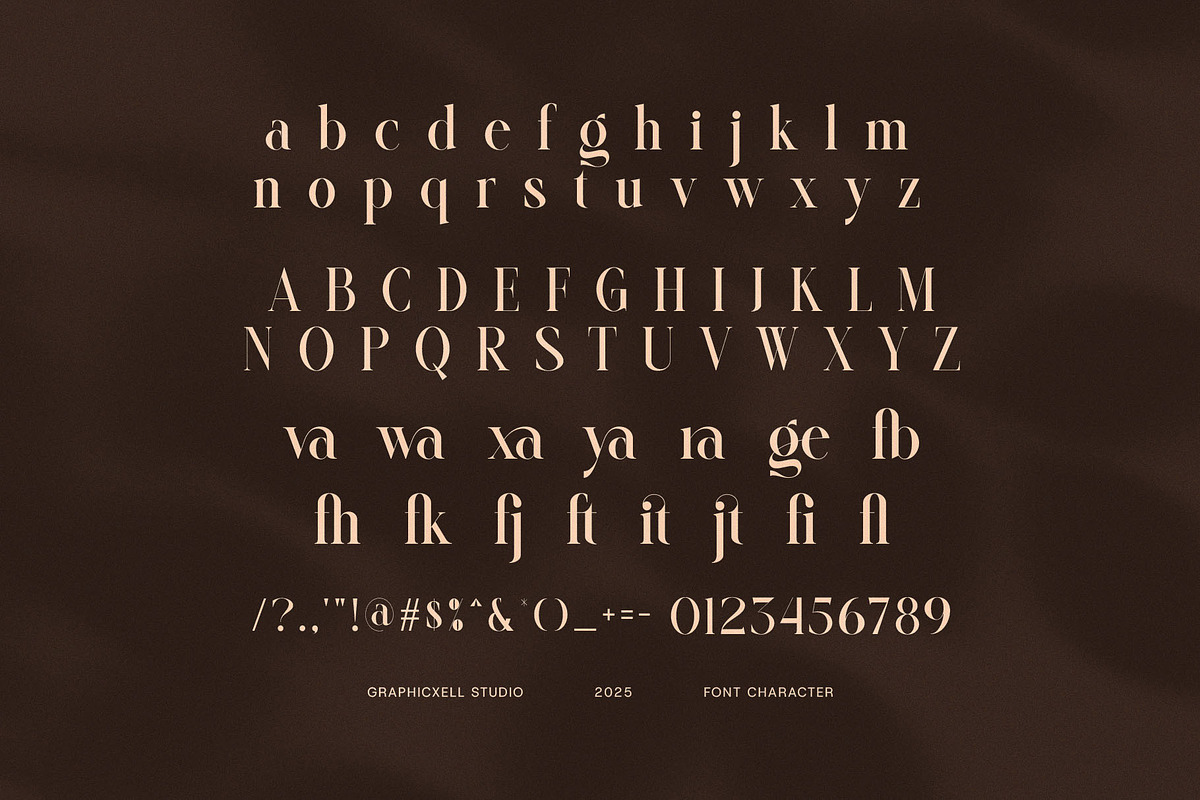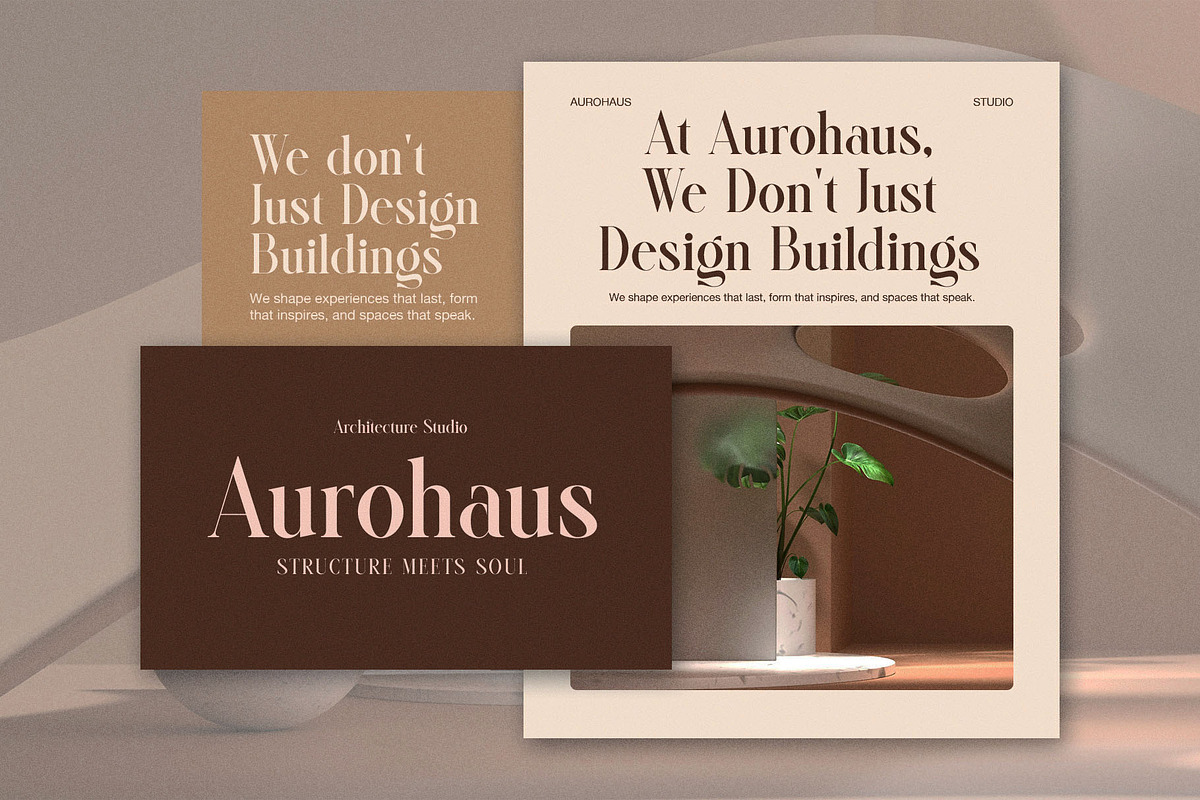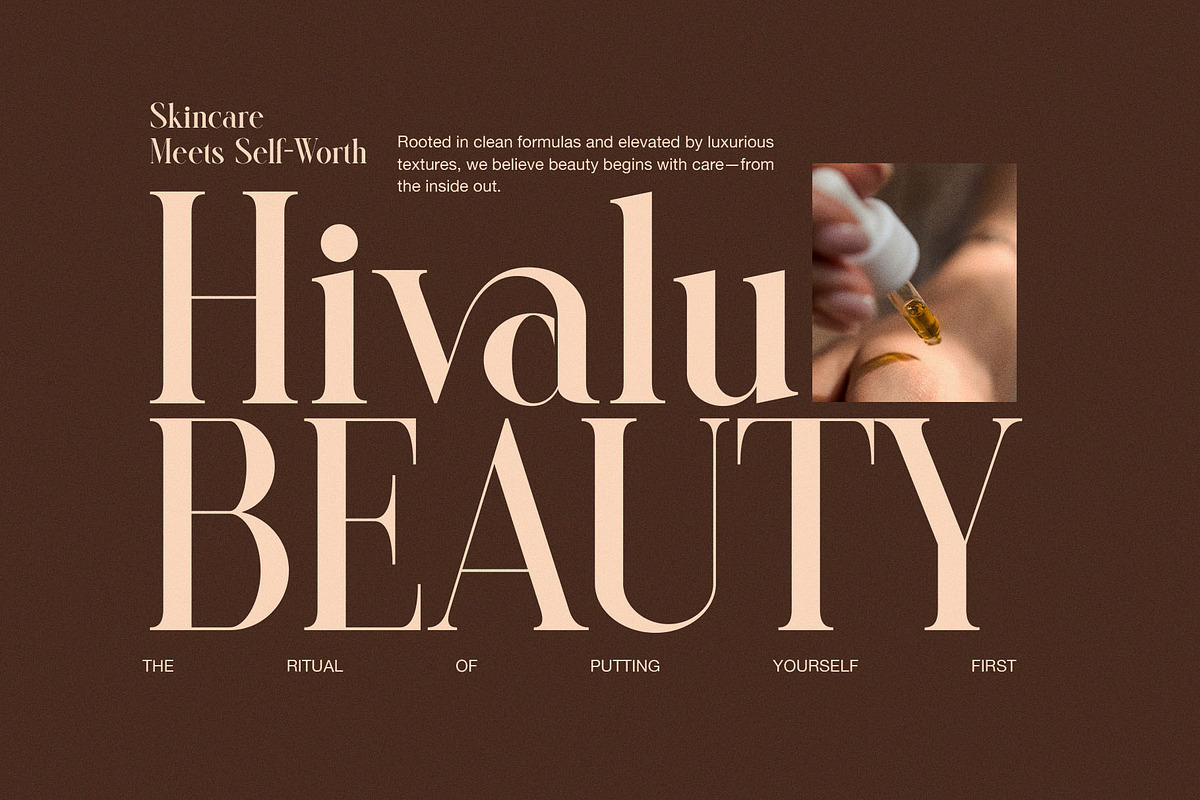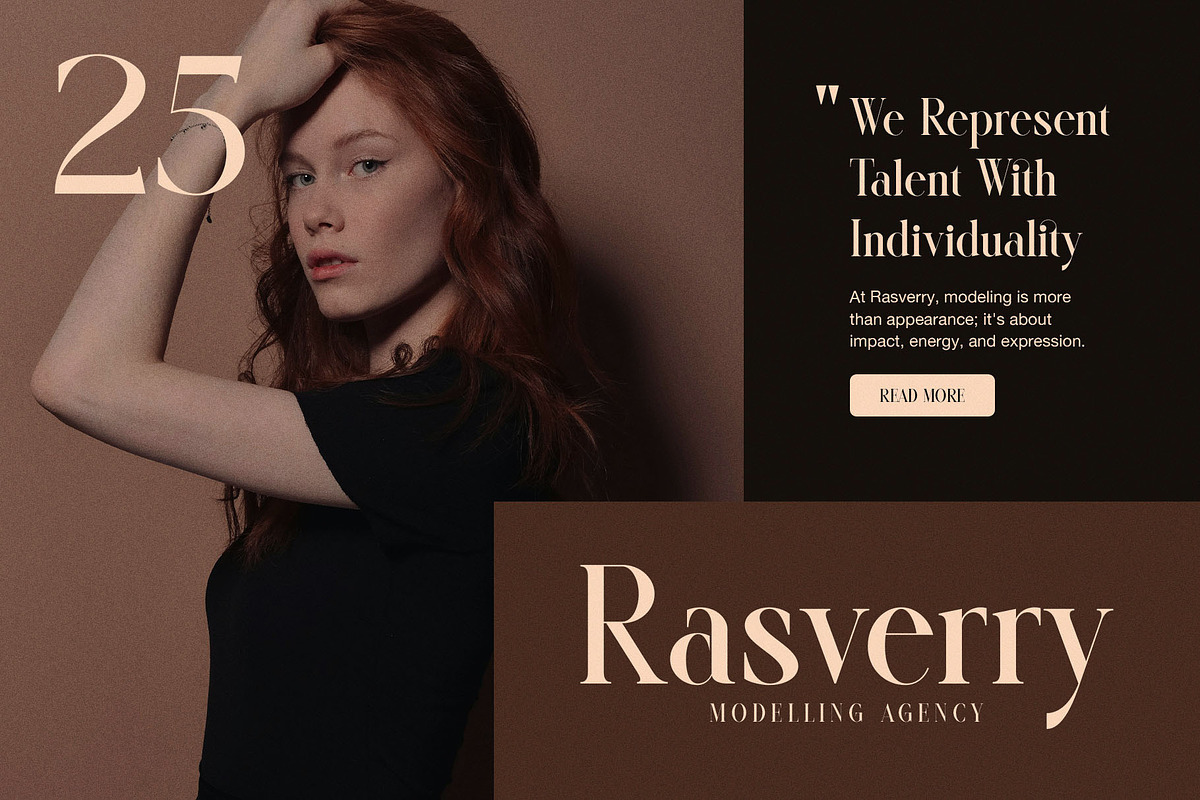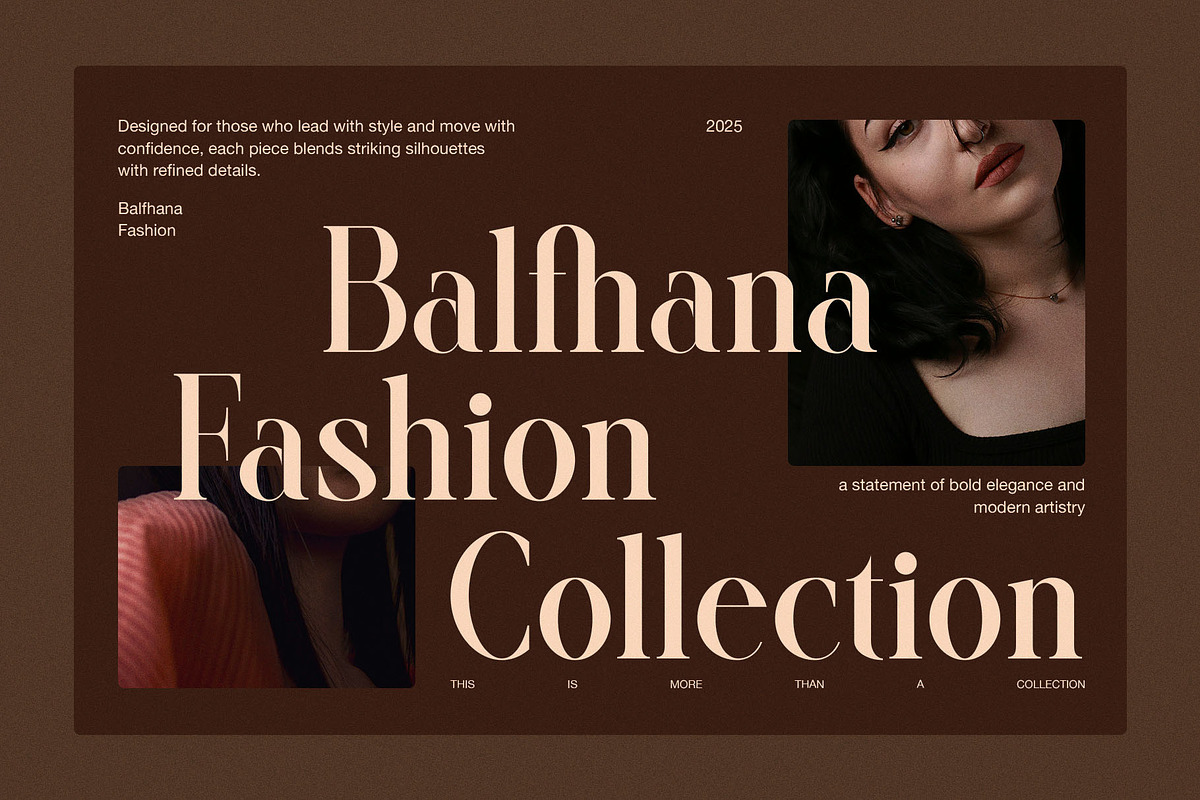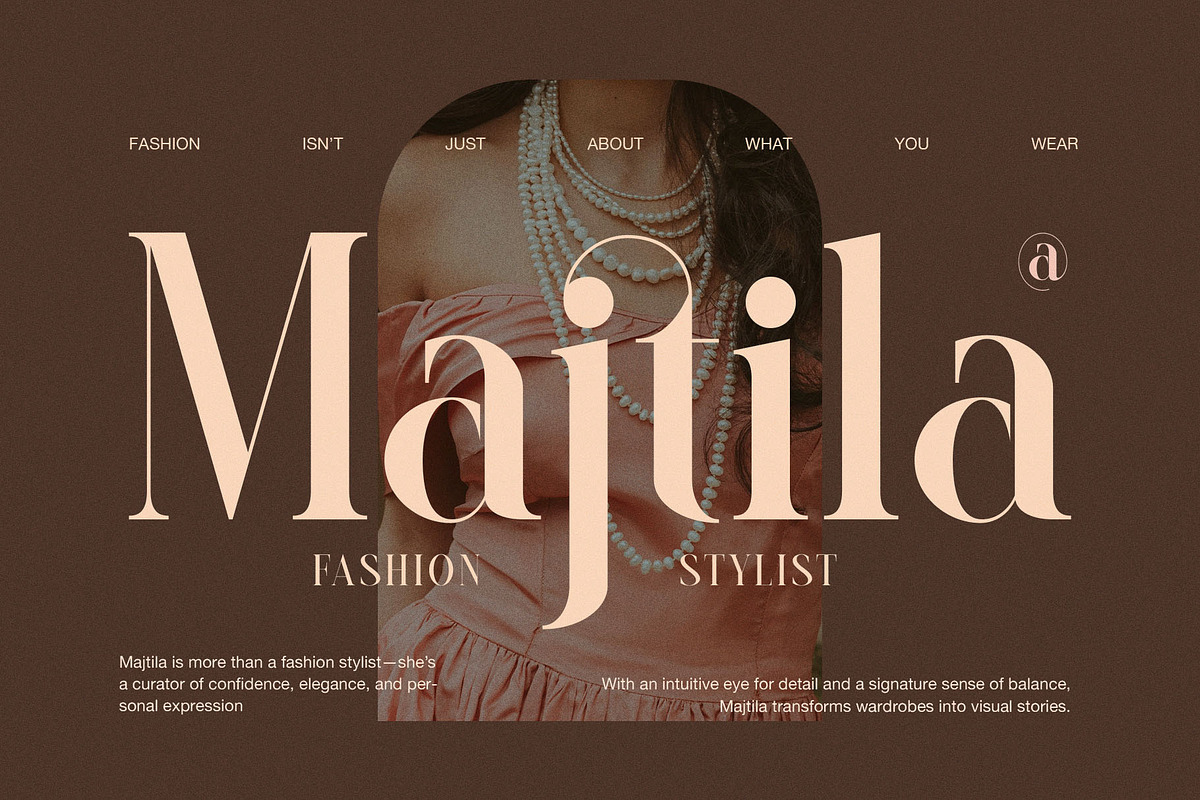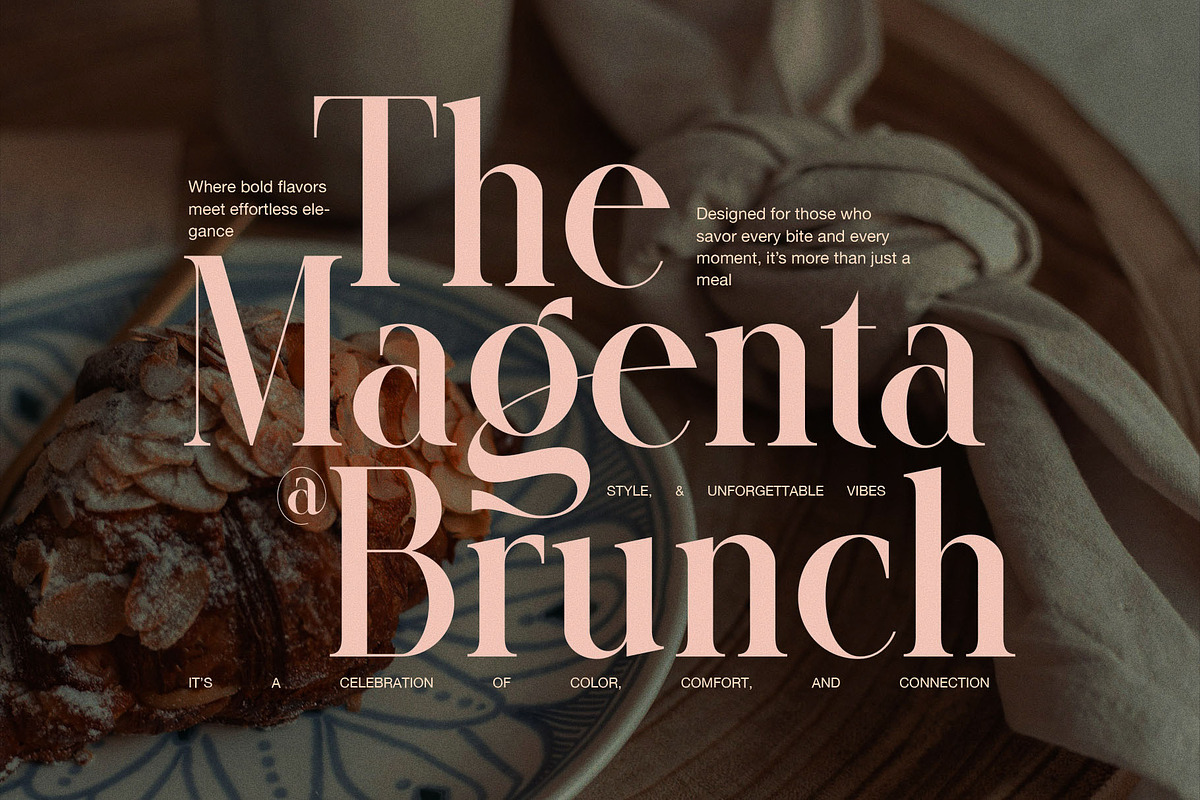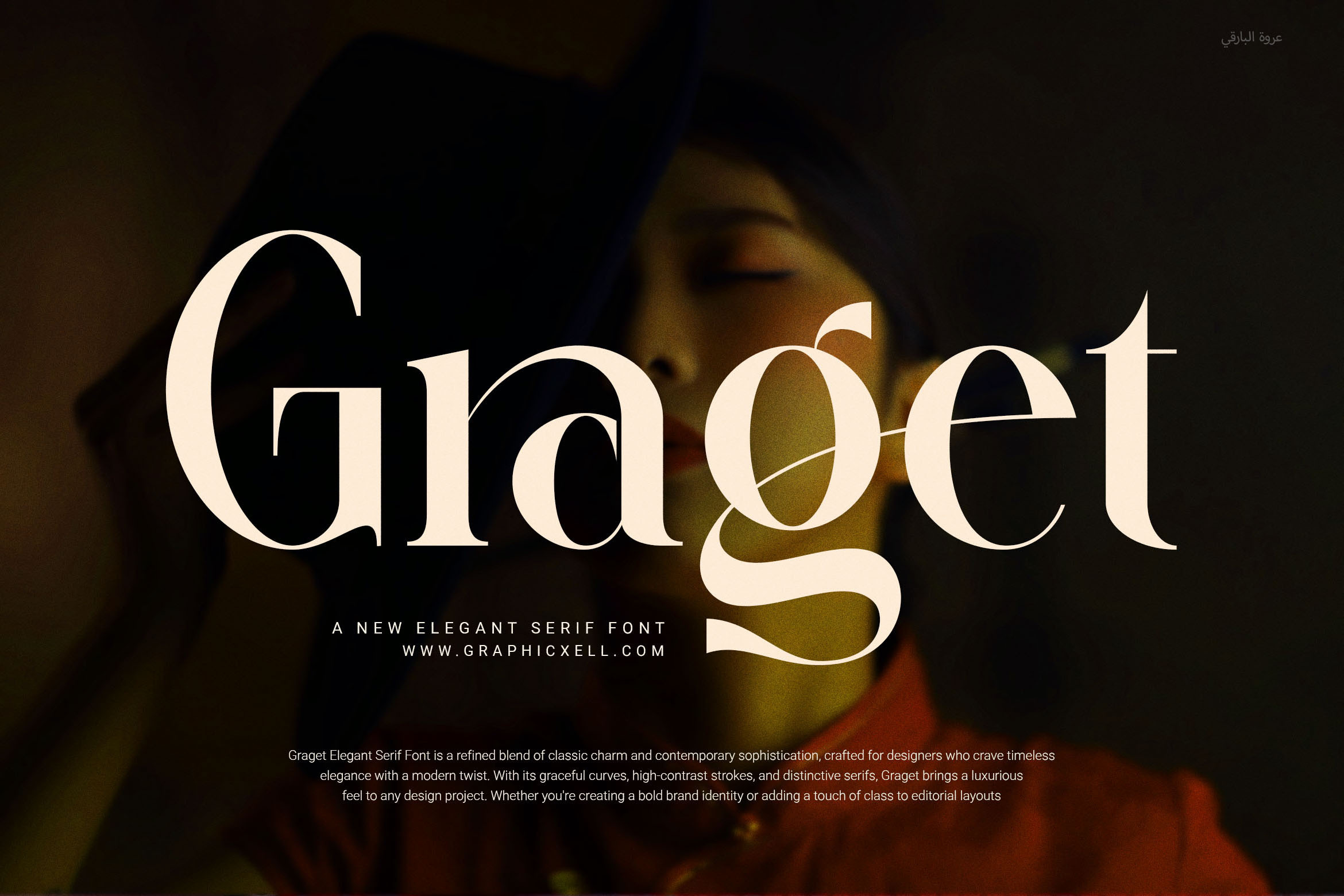
Graget Elegant Serif Font
Graget Elegant Serif Font – Modern Elegance for All Your Branding Needs
Graget Elegant Serif Font is a clean and modern serif typeface designed to bring sophistication and style to your brand. Its balanced and proportional shapes work perfectly for a variety of design projects. Whether you're creating logos, branding materials, websites, magazines, or product packaging, Graget adds a polished and professional touch that makes your work stand out.
This font also features functional ligatures that improve readability and add a unique flair to your designs. As a result, your text flows smoothly and looks refined. Graget is versatile enough for use in diverse industries, including boutiques, food brands, advertising, and more.
Ideal applications for Graget include:
Business logos and brand identity
Website headlines and layouts
Magazine designs and editorial content
Product labels and packaging
Advertising campaigns and promotional materials
Fashion boutiques and lifestyle branding
In short, Graget Elegant Serif Font is more than just a typeface—it’s a reliable partner for elevating your brand with timeless style and professional quality.